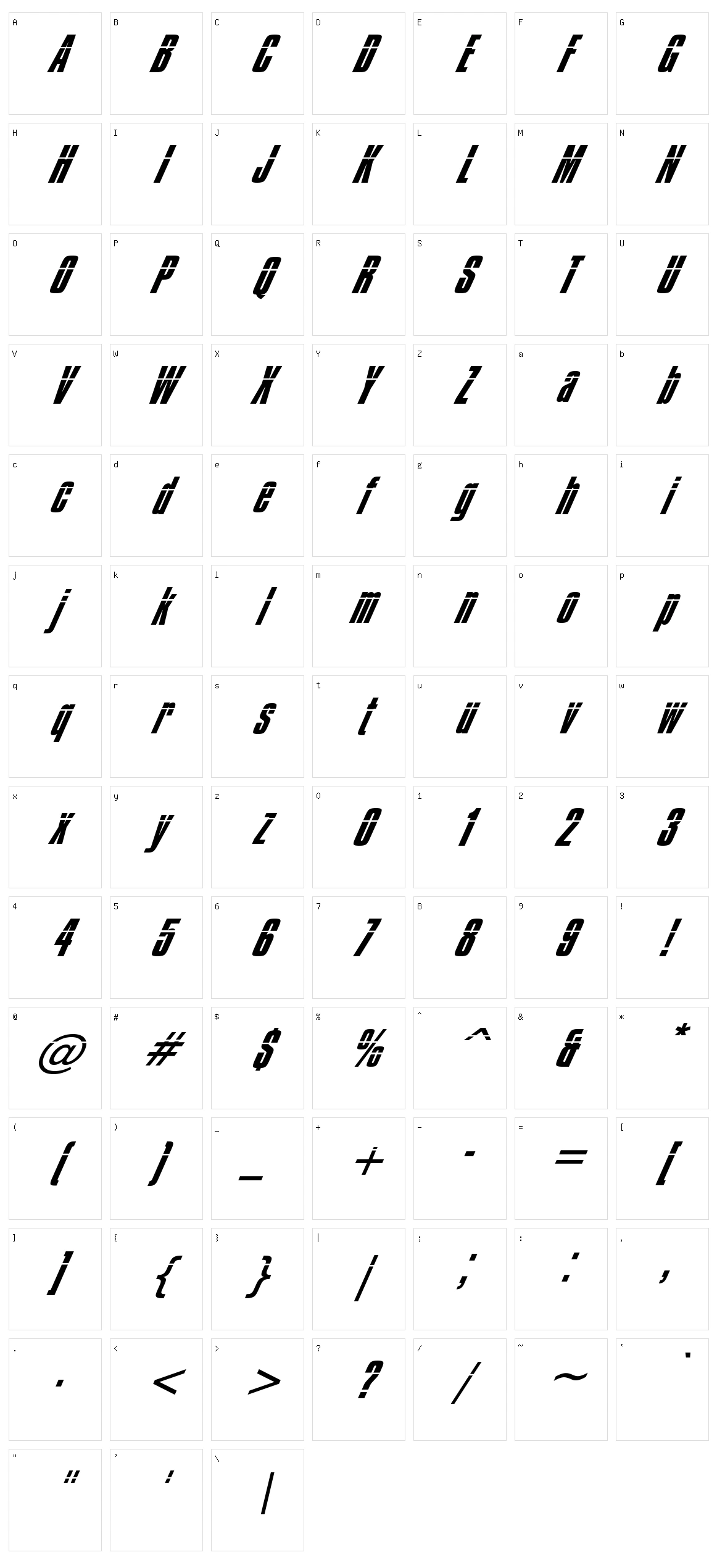
The basic difference between a type designer and a graphic designer is simply this: the type guy will always worry about the type itself without giving consideration to how flexible the type will be in the graphic guy's hands. Ever since the established digital type technologies we have nowadays came into their proper places, this difference has been and is now still being debated back and fourth. Some type designers stick to their guns and say that it is the graphic designer's job to make the most out of the type, but this theory tends to forget that no matter how deep-rooted the art element in type happens to be, type was, is and will always be just an accessory to graphic design, except of course in very exclusive circles where type is everything and its usage is not an issue. Other type designers, on the other hand, have come to the realization that their work will receive its only valuable recognition by the people who use it, i.e. graphic designers of all levels. The most common way that shell-shocked typographers meet the graphic designer's need for flexibility has for a while now been simply to make different weights and variations of the same font. Font families of course get more recognition and/or money than a single font. But still, although the flexibility issues receive a partial solution through the "font family" method, it is still nowhere near perfect, and graphic designers are incessably asking for more variations on every theme. For a minor example, where is Gill Sans Light Condensed when you need it? Nowhere to be found, because it was never made. One would think that in this age of information, everything would be available for the person who wants to do not much more than lay out information.
Multiple masters are another way of trying to meet the need for type flexibility. The approach is basically putting many more possibilities in the graphic designer's hands than a 12-font family or even a 200-font family can provide. Most multiple masters have a minimum of 1000 possibilities for a typeface. These possibilities of course vary by design, being concerned with width or weight or overall shape, or all of the above. This technology constitutes a near perfection in flexibility for the graphic designer. But now it's supposedly not supported by its makers anymore (Adobe), and so this solution is scrapped, and we once again see the wall rise up between graphic designer and type designer, both of whom are caught in a flood of people who are homing in on their respective trades, with more pressure being again placed on type designers to meet the graphic designer's demands, now with ever-increasing risks of the type produced not even meeting its initial cost of time and material.
Not at this lab, though. Multiple masters will still be produced here for as long as they can be used by applications. The MM accompanying this note is another proof of that. ImpossibleMM is a three-axis multiple master, with one axis for width, one for slant, and one for character disintegration. Make sure to also download the true type zip, because it contains a couple "angled" fonts that cannot be produced from the multiple master. I wanted to add a fourth axis to the multiple master, that enables 3D "angling" from -30 to +30 degrees, but I found out the hard way that ATM has never supported 4-axis multiple masters. So 3 is it.